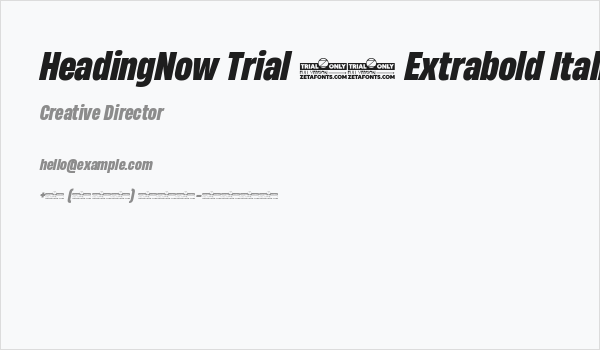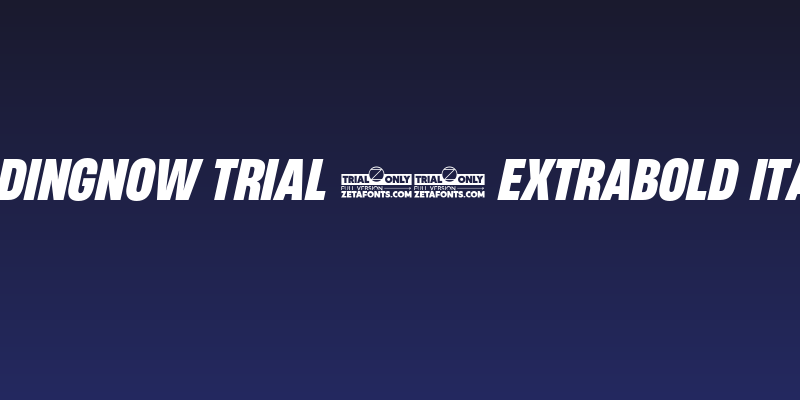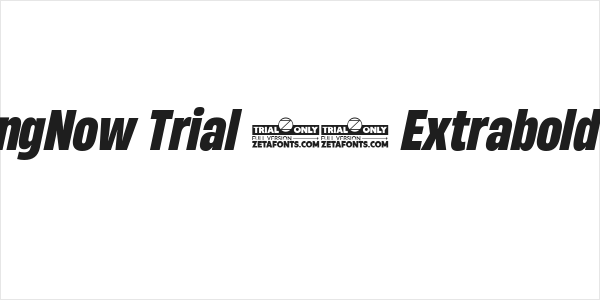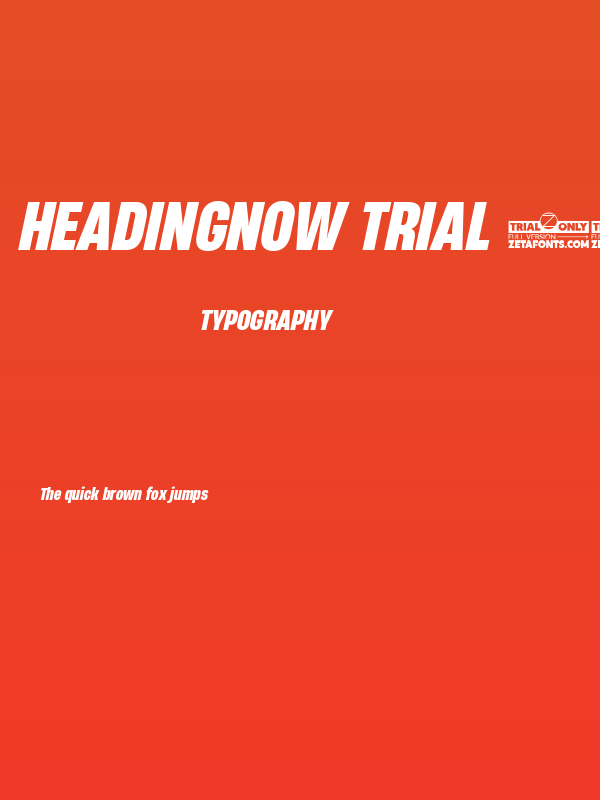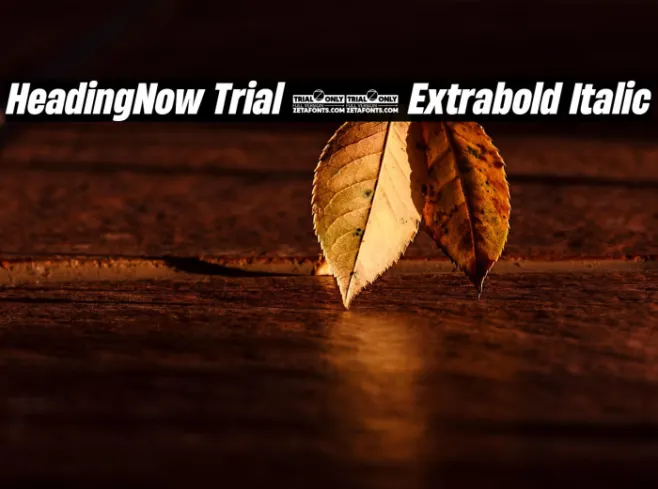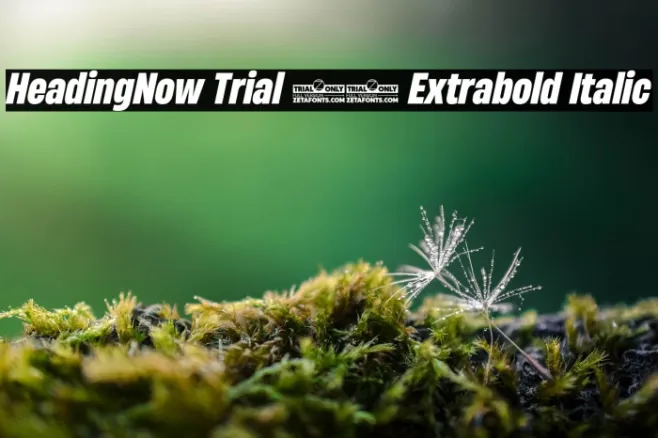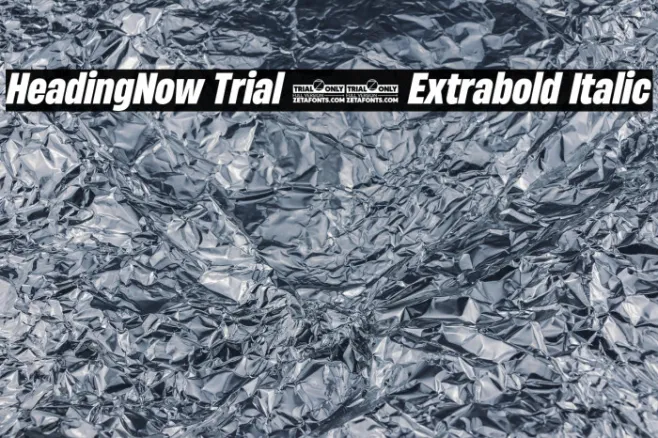
HeadingNow Trial 57 Extrabold Italic Font
HeadingNow Trial 57 Extrabold Italic Description
This font is characterized by its bold and italicized style, offering a strong and impactful presence. The uppercase and lowercase letters are designed with a consistent thickness, providing a cohesive look across the alphabet. The characters are slightly condensed, enhancing the boldness and making it suitable for attention-grabbing headlines. The italic slant adds a dynamic and modern touch, making it versatile for various design needs. The numerals and special characters maintain the same bold and italicized style, ensuring uniformity throughout. This font's robust appearance makes it ideal for projects that require a strong visual impact.
| Proposed Projects | Ideal for headlines, posters, branding, and advertising materials that require a bold statement. |